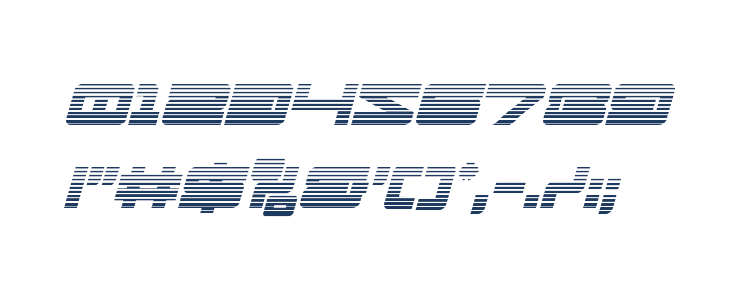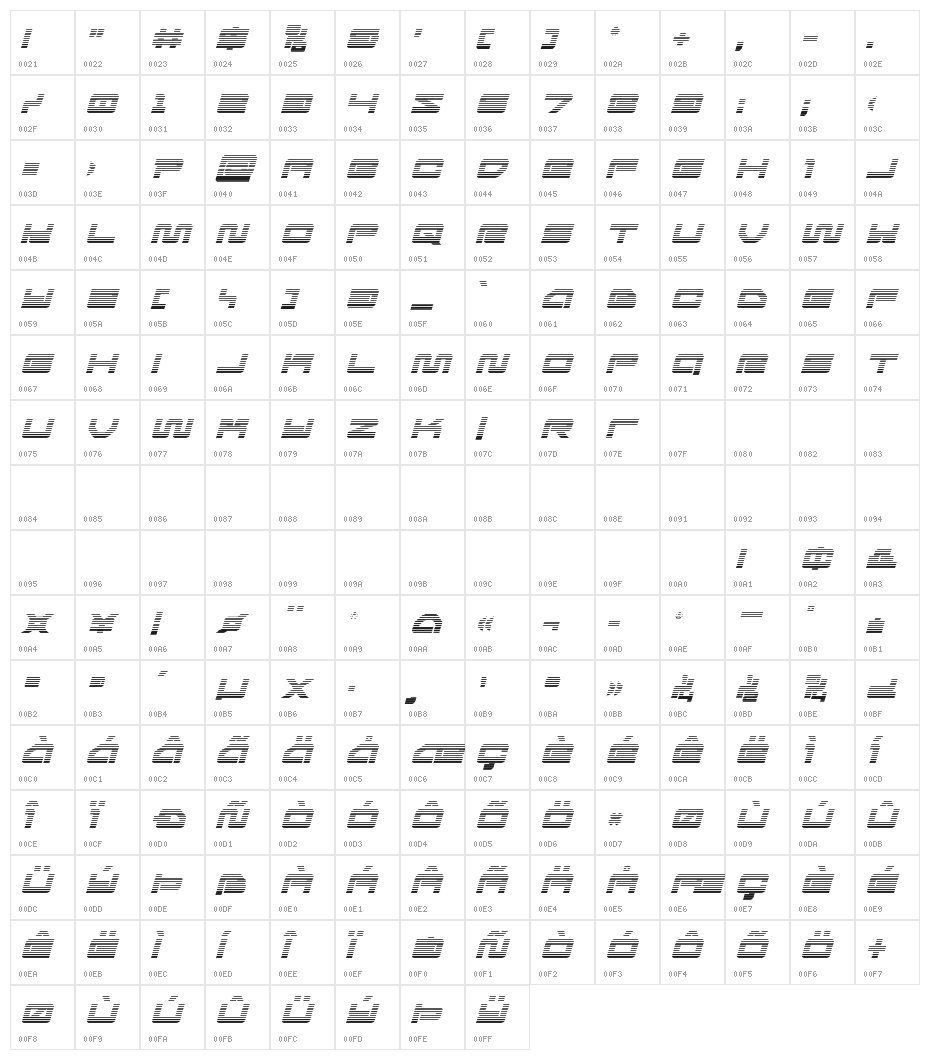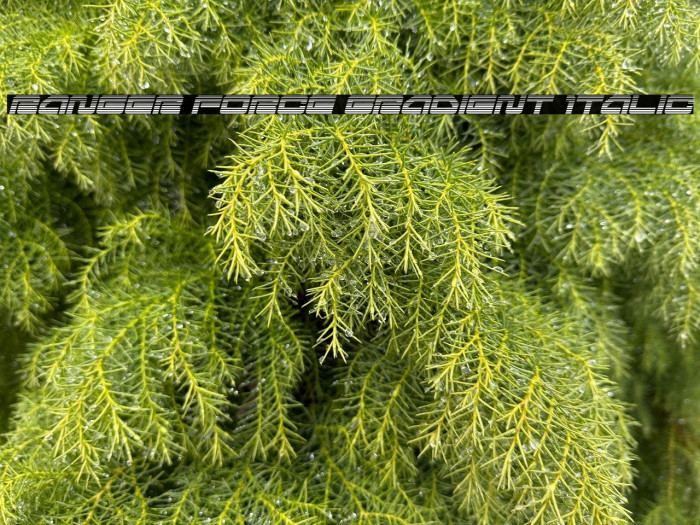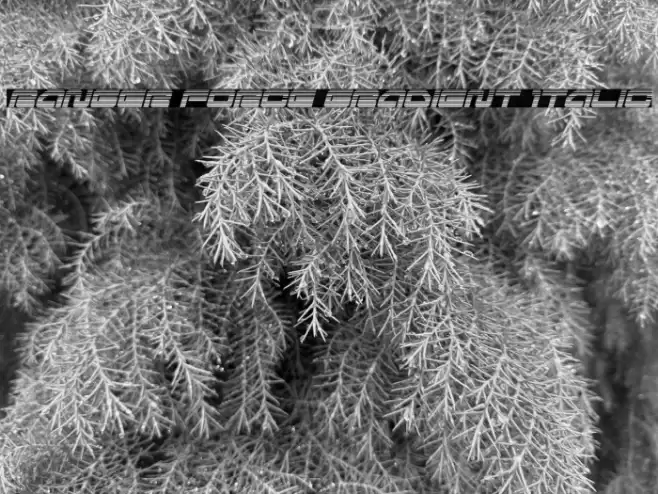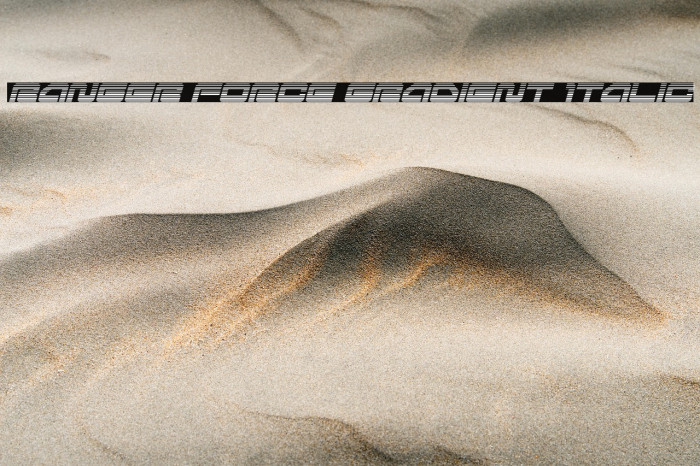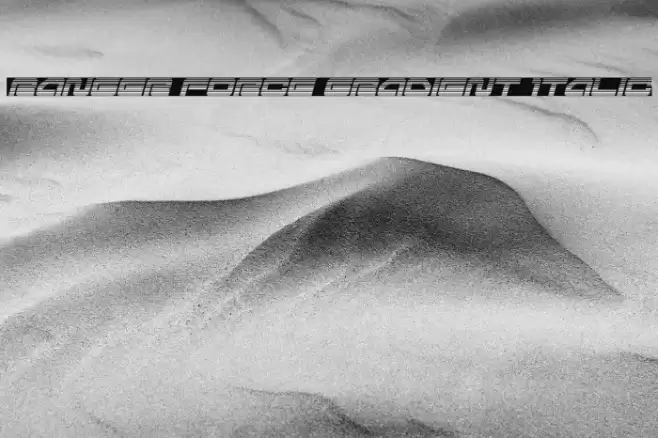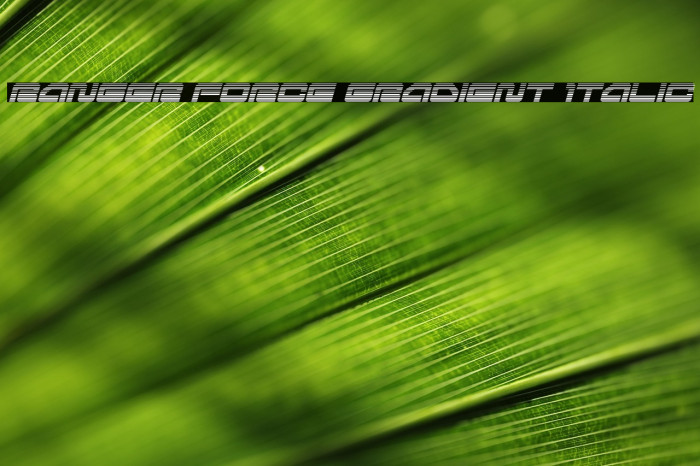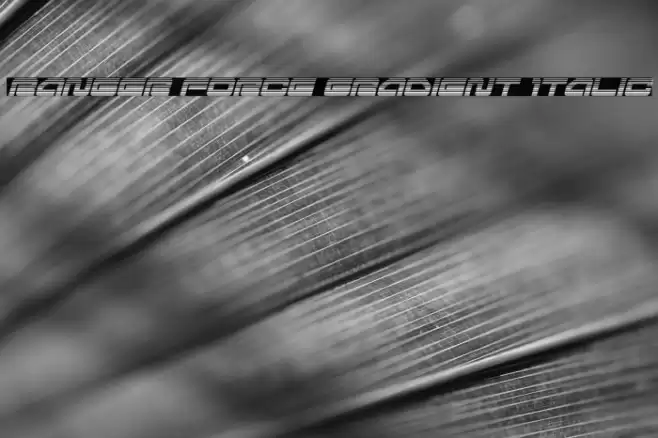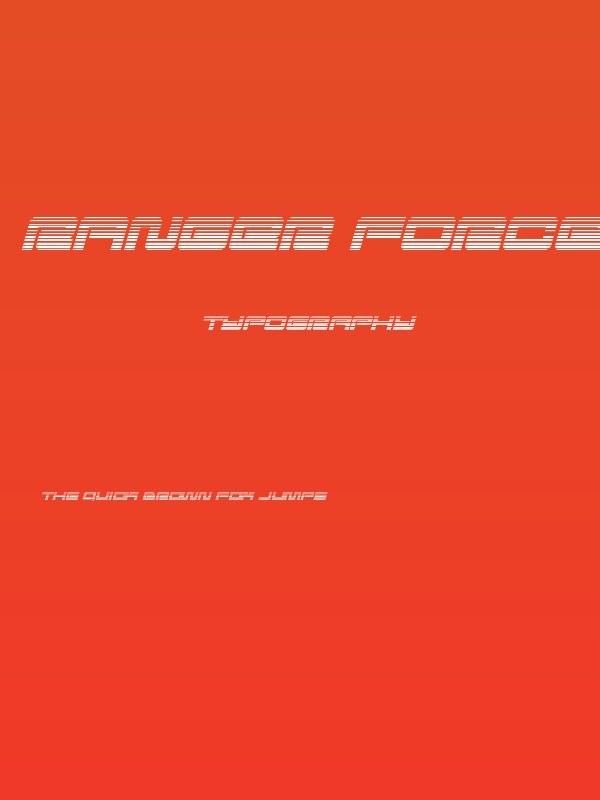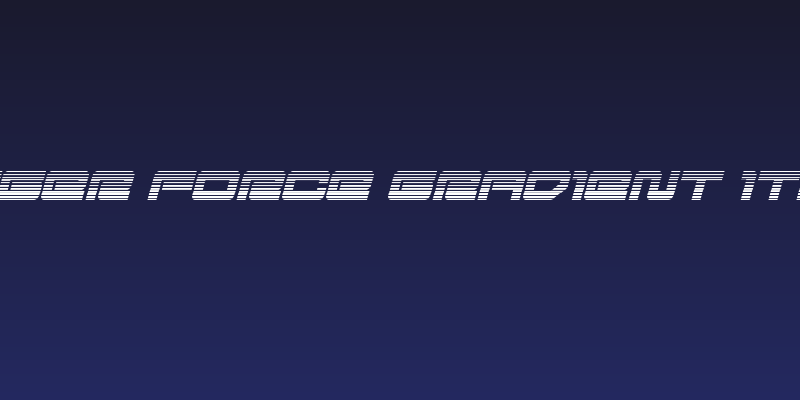
Ranger Force Gradient Italic Font
Ranger Force Gradient Italic Description
This font features a futuristic and dynamic design with a gradient effect that gives each character a sense of motion and depth. The italicized style enhances its sleek and modern appearance, making it ideal for projects that require a bold and energetic look. The characters are composed of parallel lines that create a striped pattern, adding a unique texture to the text. This font is perfect for digital and print media where a contemporary and eye-catching style is desired. Its distinct appearance makes it suitable for branding, advertising, and creative projects that aim to stand out.
| Use Case | Headlines, Logos, Advertising |
| Proposed Projects | Ideal for branding, advertising, digital media, and creative projects. |